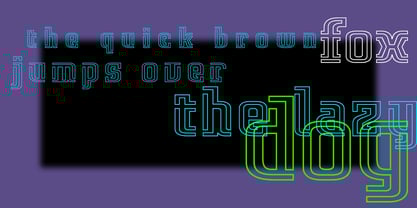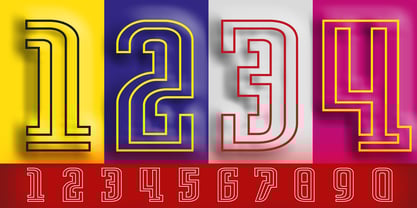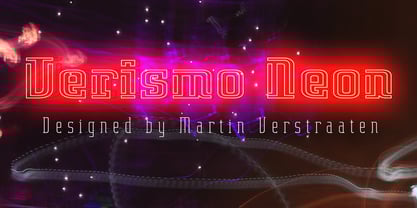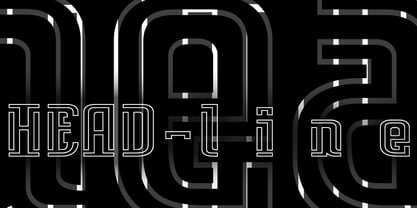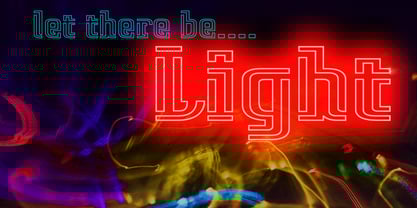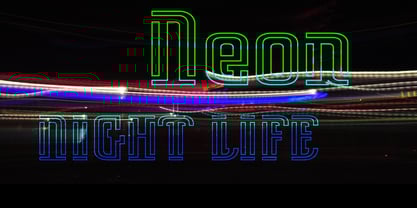
Verismo Neon
by Martin Verstraaten
The Verismo Neon Font Family was designed by Martin Verstraaten and published by Martin Verstraaten. Verismo Neon contains 1 styles. More about this family
Verismo (Italian for ‘realism’, from vero, meaning ‘true’) is a genre of operas with scenarios based on contemporary everyday life. This font is inspired by old school sign painting techniques. In addition, the font has a contemporary look and can therefore be used in many different designs. The NEON version is ideal for use as a headliner on a dark background, possibly in combination with an outdoor glow effect.
Martin Verstraaten born 1958 in Delft, the Netherlands. He studied drawing and sculpting at the Teachers Training Academy ZWN from 1976 to 1981. Between 1986 and 1990 he specialized in Graphic & Typographic Design at the Royal Academy of Fine Art in The Hague. His work consists of different disciplines; font design, graphic design, photography and painting.